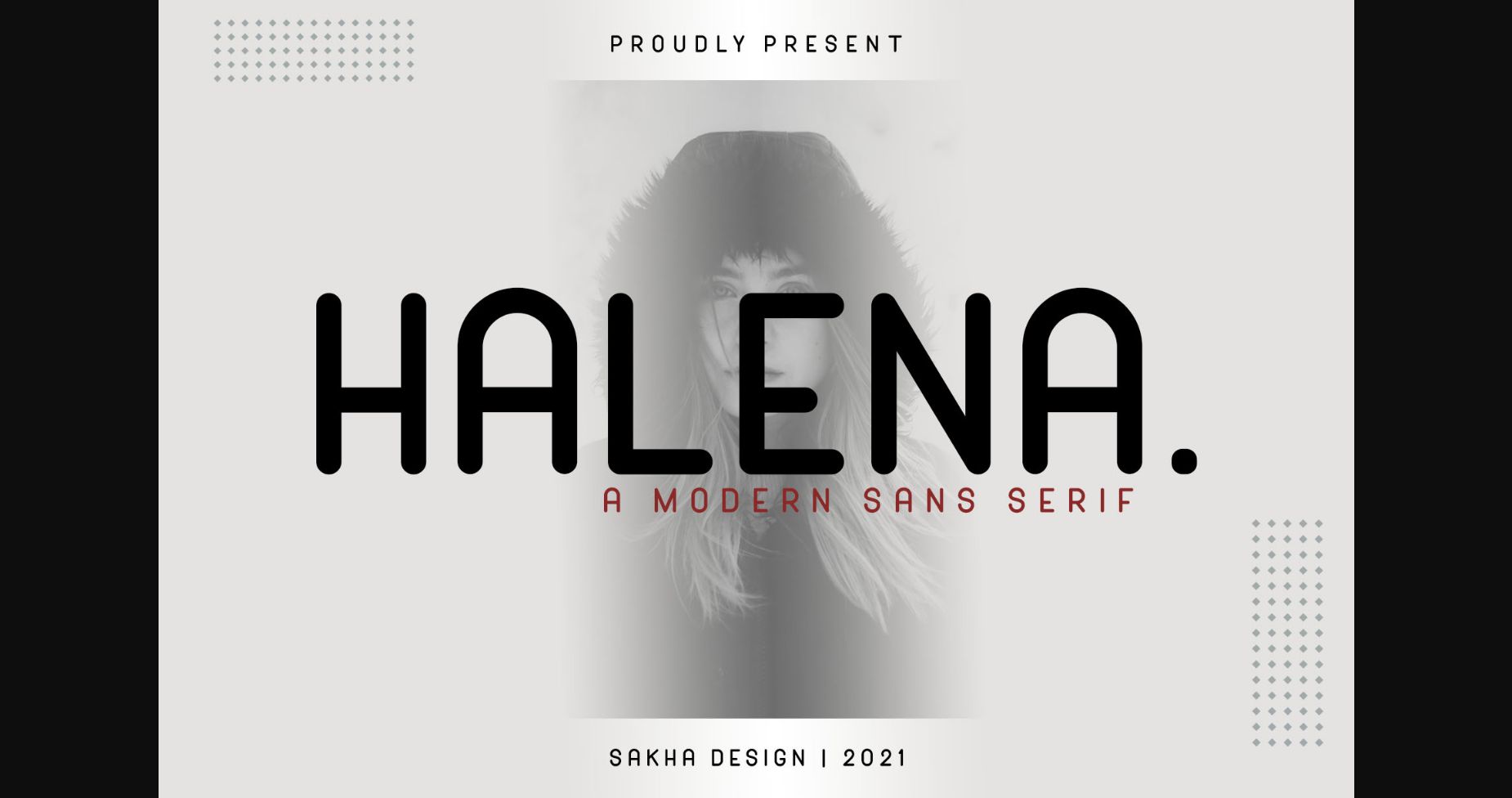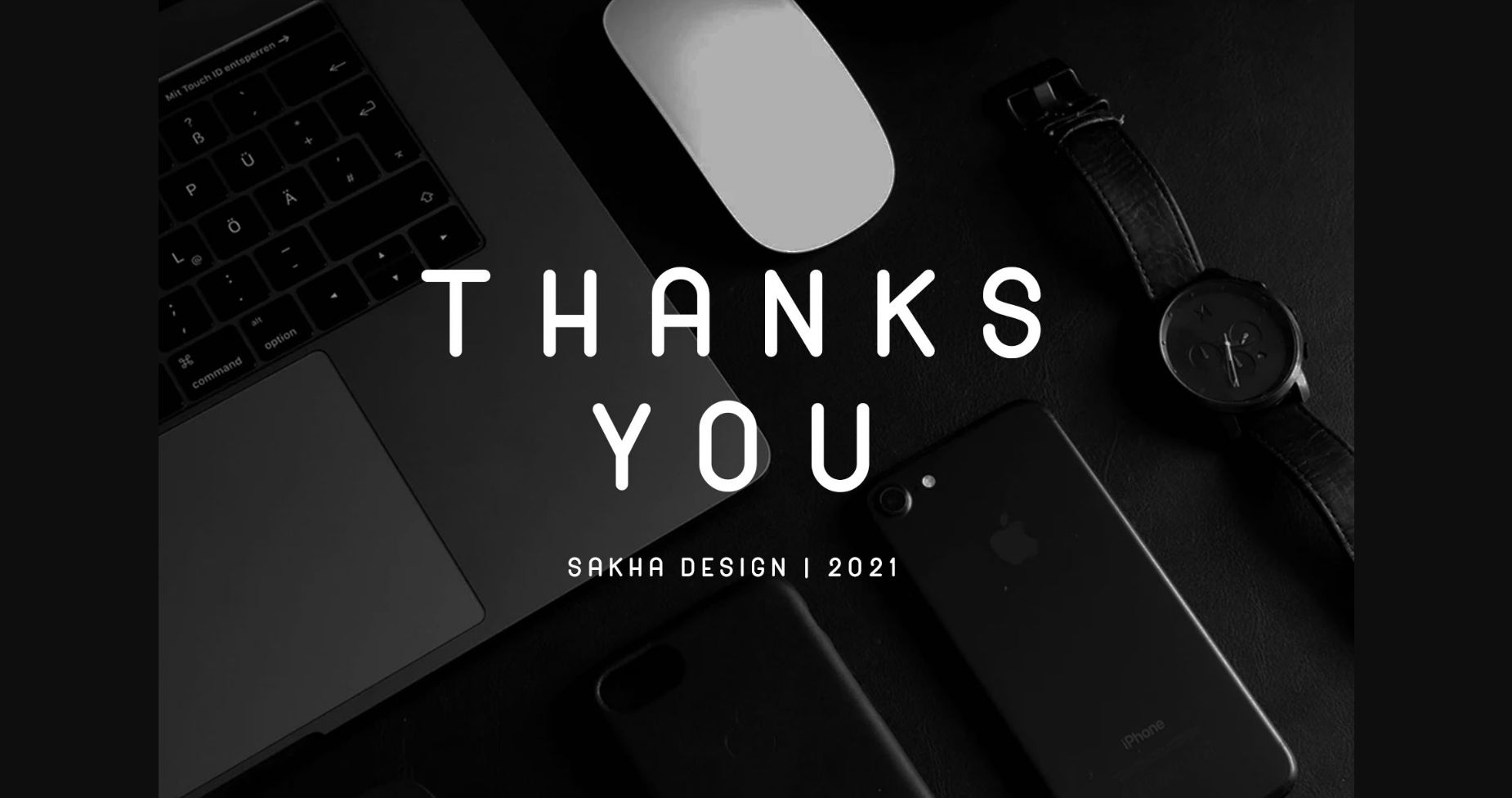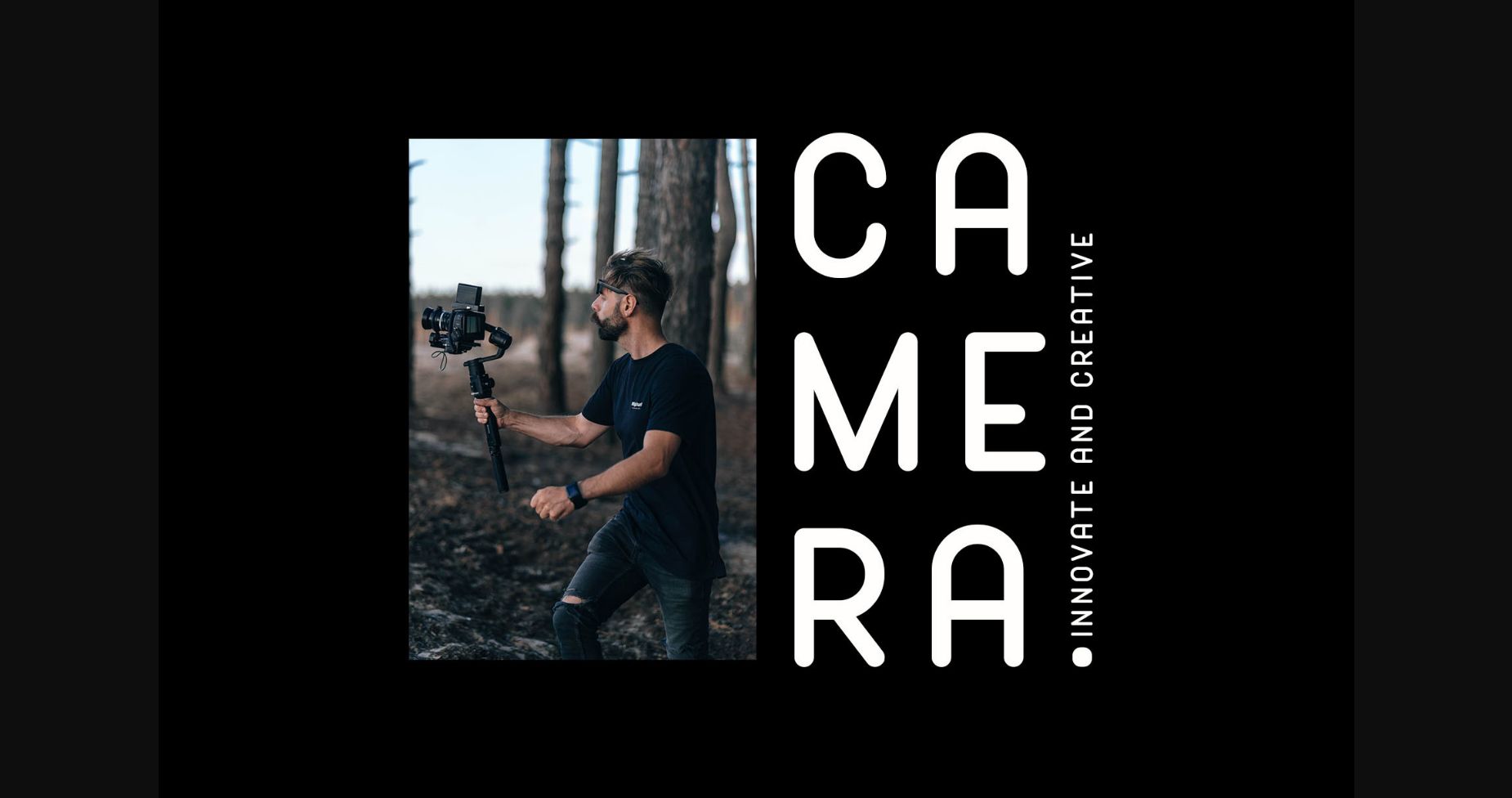
About Halena Font
Halena is a modern and adaptable sans serif font. Suitable to a wide variety of designs due to its neat and simple style, this font has the potential to become your favorite go-to font, no matter the occasion!